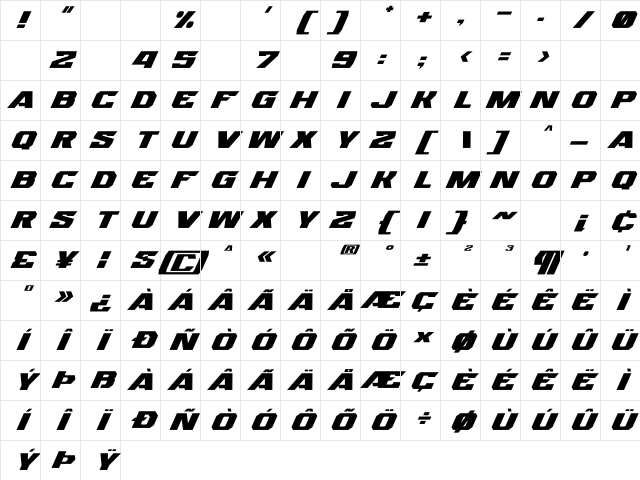
Stainless Italic
Foundry: Gassstype￿ Studio
Designer: Anang F & Malik Wsn | Gassstype￿ Studio 2022
Design Context for Stainless
Stainless is a composed and adaptable typeface that performs quietly and consistently across a wide range of design contexts. The slanted form adds forward momentum and visual energy.
Pro Tip: Use Stainless for emphasis, pull quotes, and subheadings where its slanted energy can add rhythm to the layout.
Who designed the Stainless Italic font?